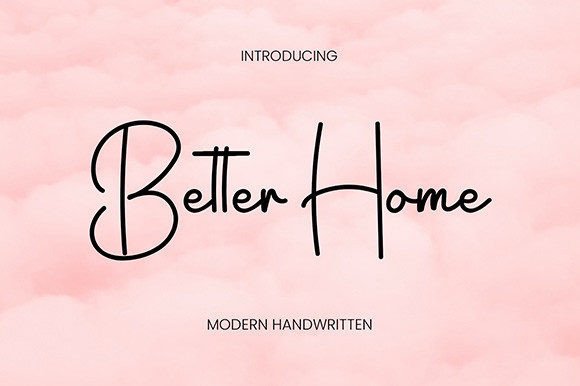
Introducing Better Home Font: The Key to Unlocking Your Creative Potential
Embark on a typographic journey with Better Home Font, a captivating script font family designed to ignite your creativity and transform your designs. This extraordinary font, meticulously crafted by the talented Chatype Studio, exudes a charming and inviting personality, perfect for adding a touch of warmth and elegance to your projects.
With its effortless flow and graceful curves, Better Home Font seamlessly blends timeless aesthetics with modern flair. Its versatility knows no bounds, making it an ideal choice for a diverse range of projects, including quotes, logos, blog headers, posters, ribbons, fashion, clothing, letters, invitations, stationery, and more. Unleash your imagination and let Better Home Font elevate your designs to new heights.
Immerse yourself in the beauty of Better Home Font's meticulously crafted characters, each meticulously designed to convey a sense of authenticity and charm. Its graceful lines and elegant flourishes evoke a nostalgic charm, while its contemporary touches ensure it remains relevant and stylish. Whether you're a seasoned designer or just starting out, Better Home Font is the perfect companion for bringing your creative visions to life.
Experience the joy of creating designs that captivate and inspire. Better Home Font's enchanting personality will leave a lasting impression on your audience, whether it's through eye-catching logos, heartfelt invitations, or stunning posters. Its versatility extends beyond traditional print media, making it a superb choice for digital designs as well. Embrace the endless possibilities and let Better Home Font be your creative compass.
Don't settle for ordinary fonts. Choose Better Home Font and embark on a creative odyssey where your designs come alive with charm and sophistication. Dive into a world of limitless possibilities and let your imagination soar. Embrace the beauty of Better Home Font and transform your designs into masterpieces that resonate with your audience.